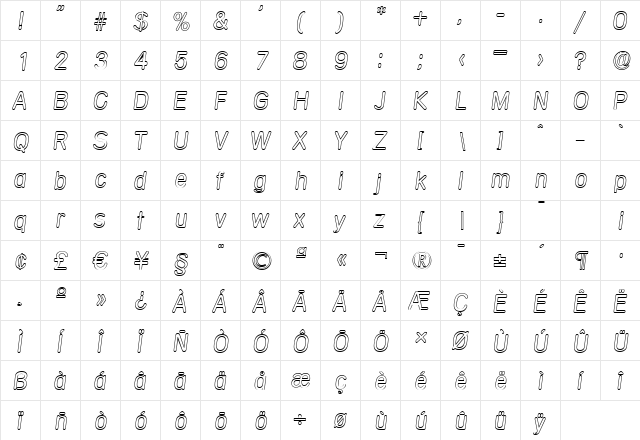
AndreasBeckerOutline-Light Italic Font Preview
Design Context for AndreasBeckerOutline-Light Typeface
AndreasBeckerOutline-Light is built around its visual character rather than neutral utility — its distinctive forms are designed to make an impression at display sizes. The dynamic lean of this cut emphasises speed and emphasis in any layout. Its slender proportions lend an understated elegance to any composition.
Font Pairing: Pair with a clean neutral sans-serif for body copy to let AndreasBeckerOutline-Light's character lead without overwhelming the composition.
Pro Tip: Treat AndreasBeckerOutline-Light as the centrepiece of your typographic hierarchy. One strong heading set in a decorative face can carry an entire layout.